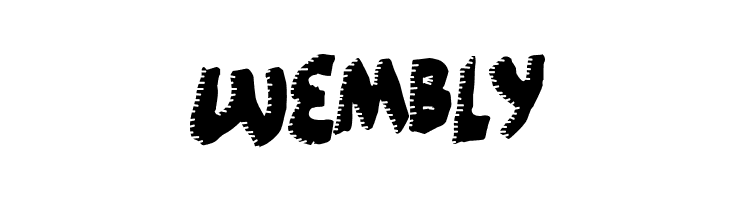
French fries Font
- Font: French fries
( Fonts by Loraine Wauer Ferus www.billybear4kids.com )
A bold, playful font with thick, rounded characters and a whimsical style.